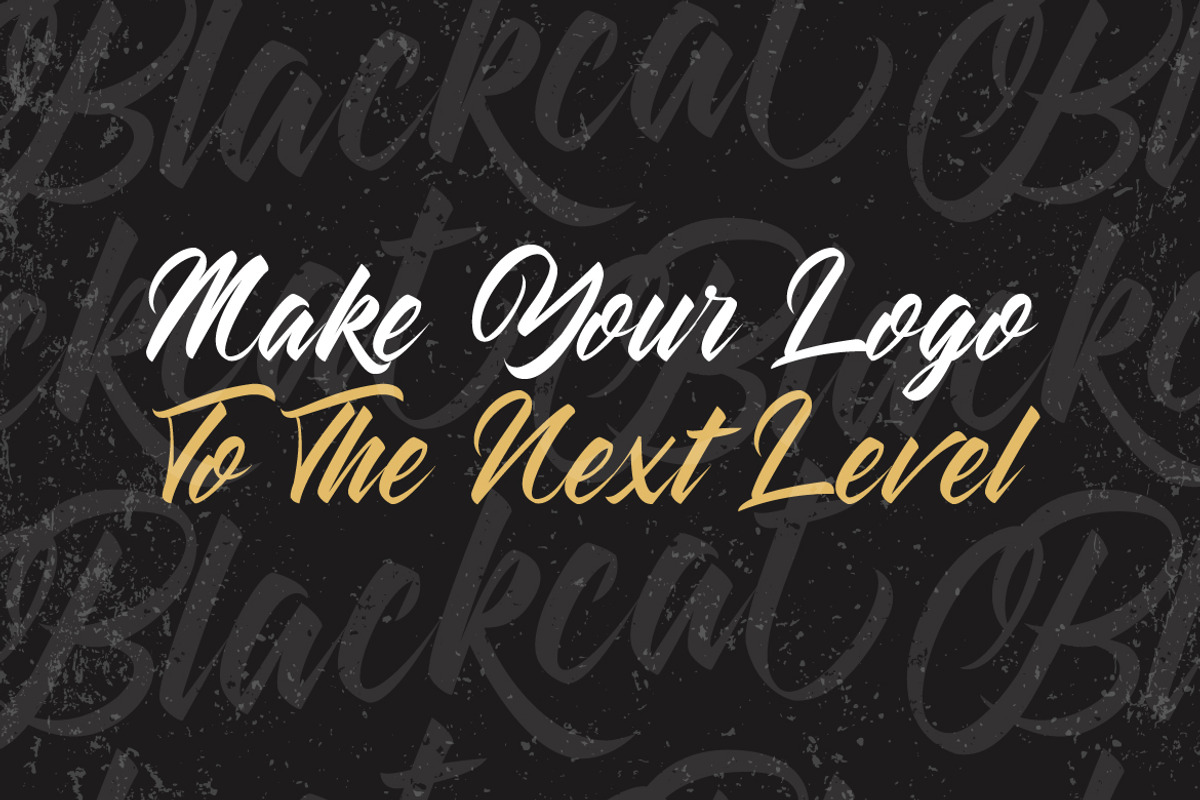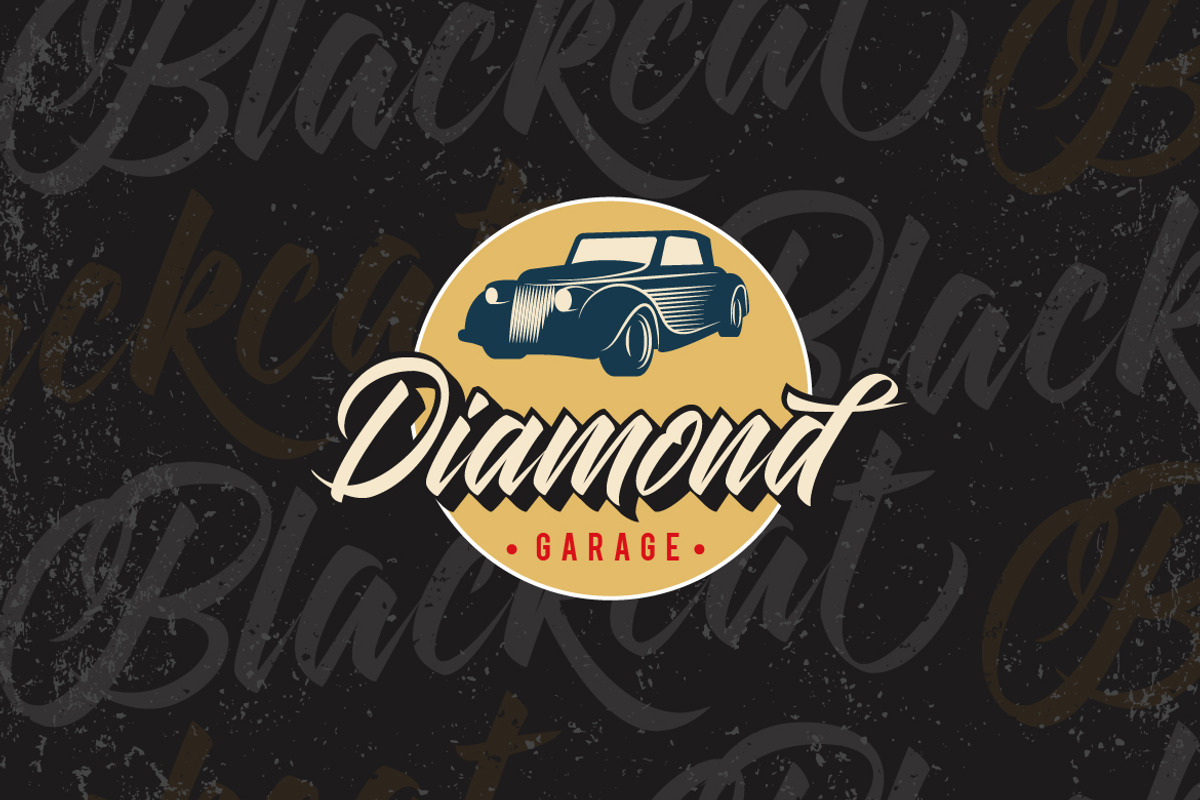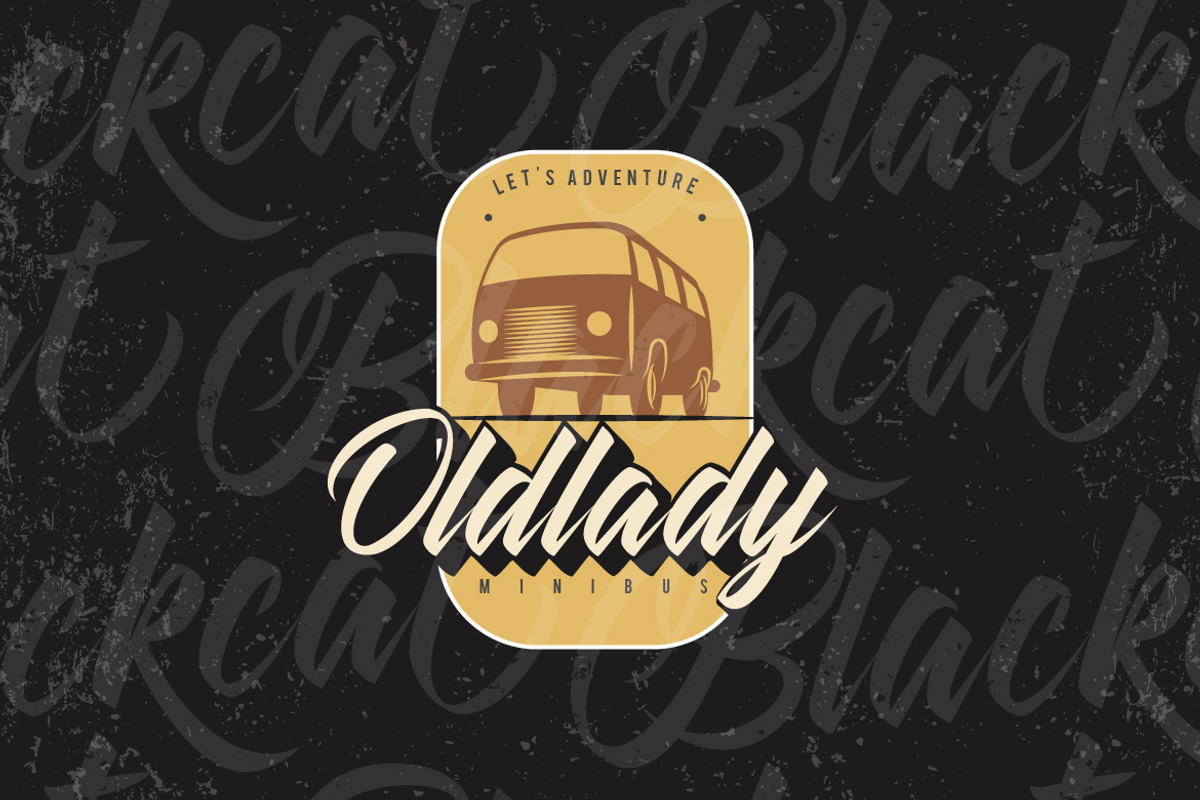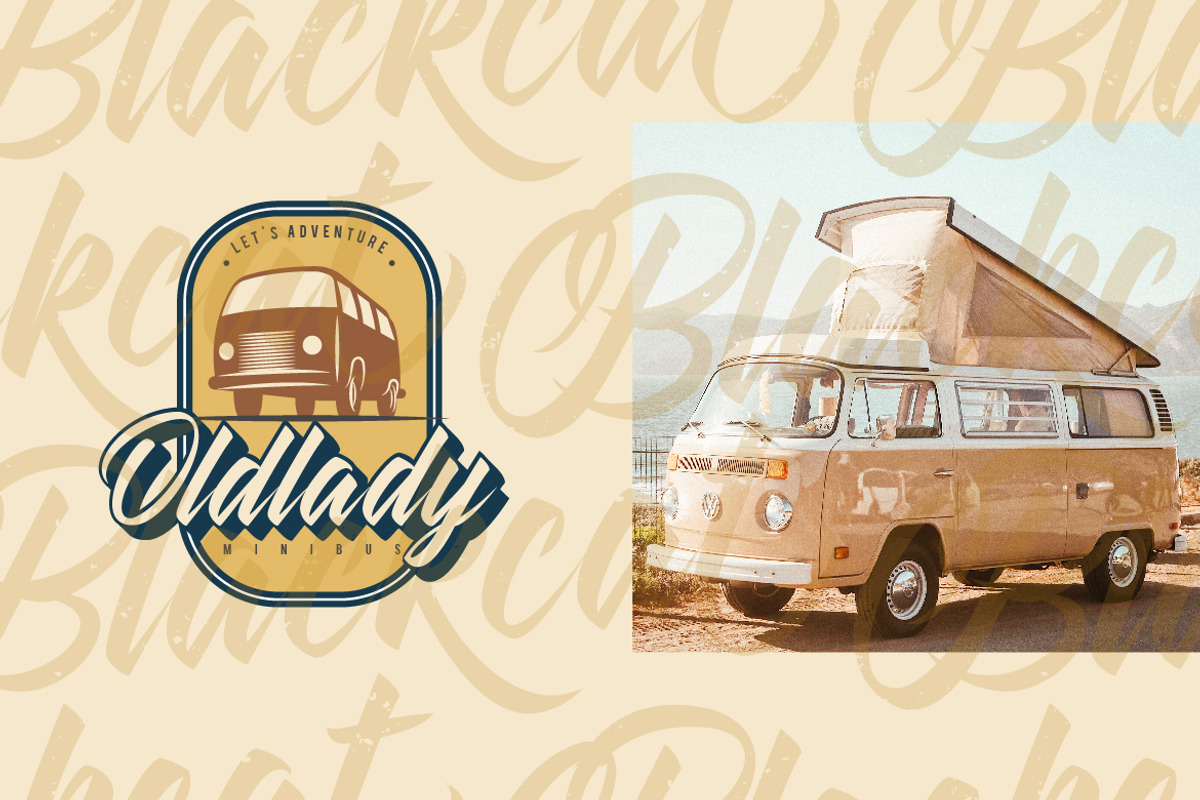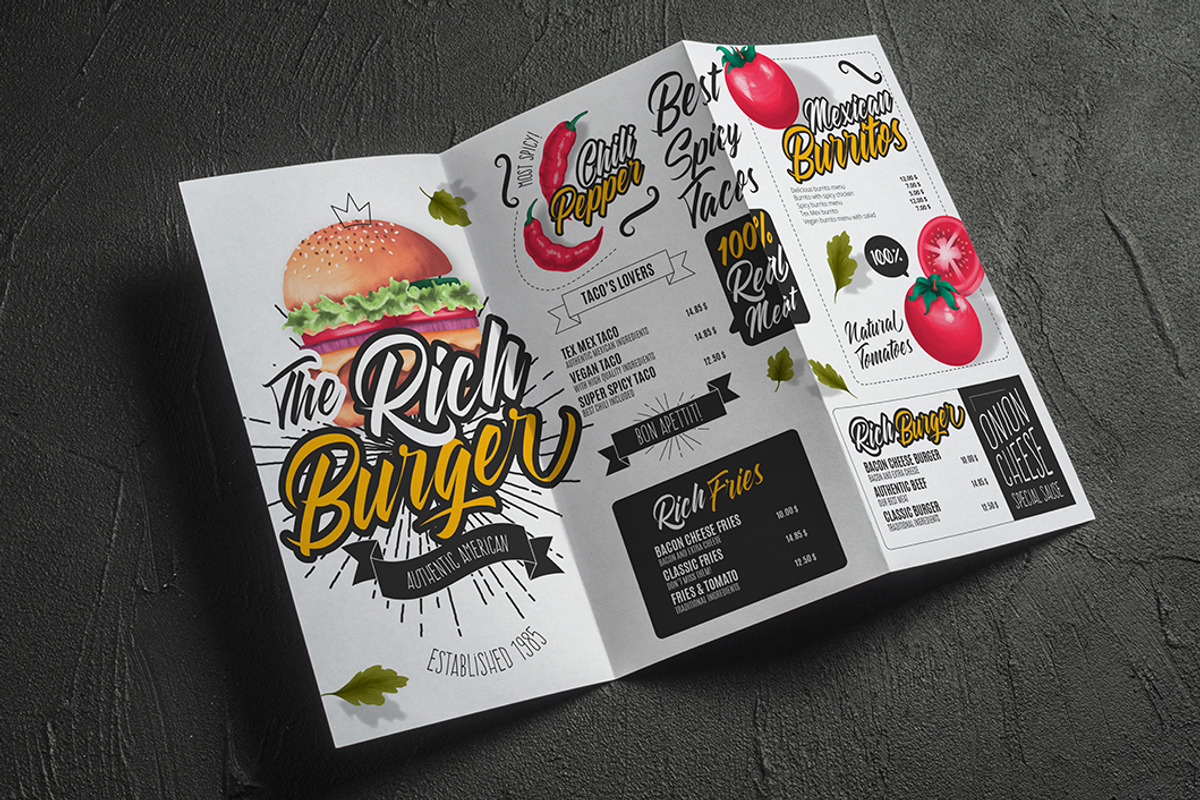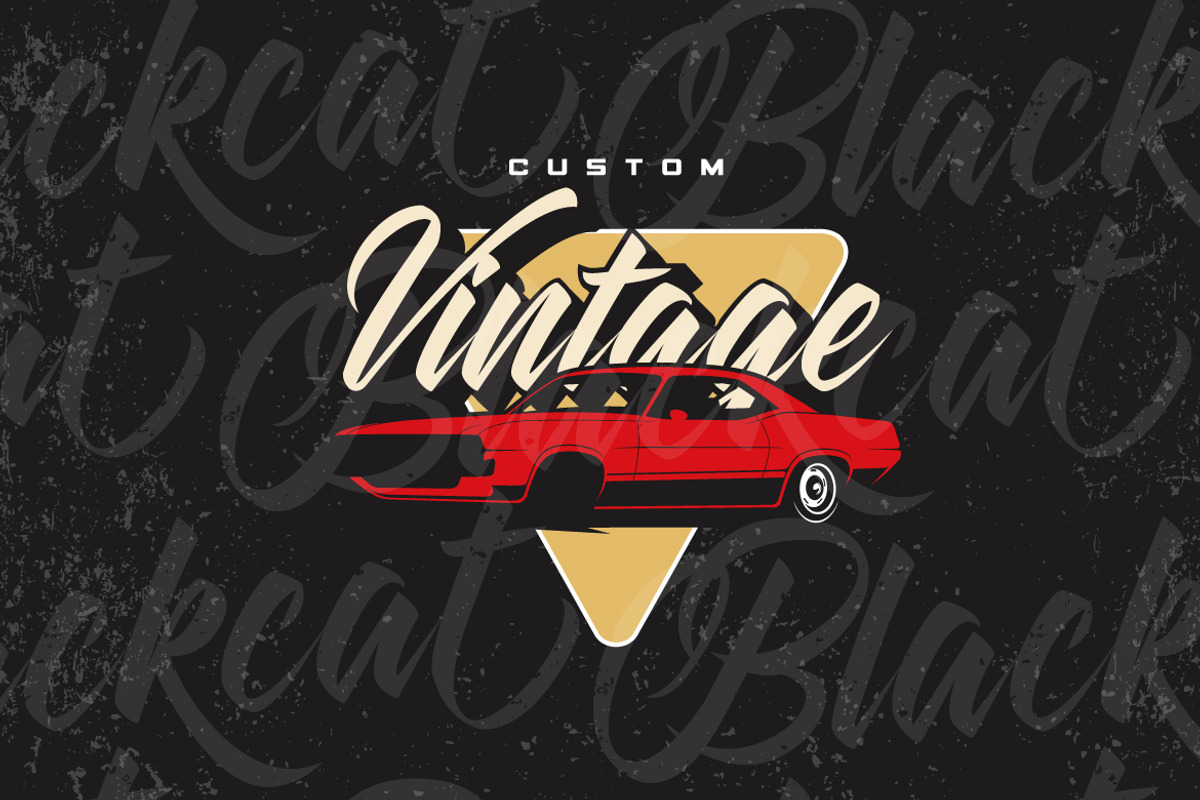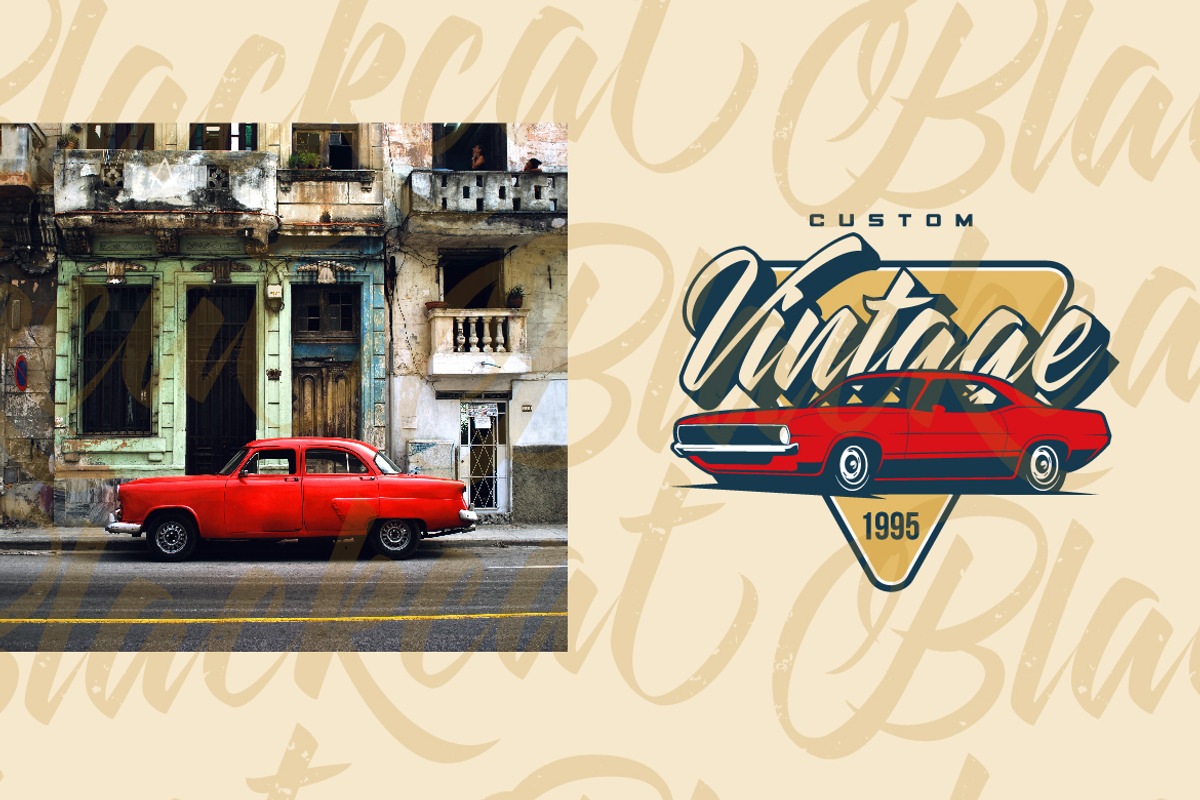
Blackcat Script Layered Fonts
Introducing new latest from Debut Studio, Blackcat is a script typeface with personality. You can use it as a logo, badge, insignia, packaging, headline, poster, etc The alternative characters in this font were divided into several OpenType features such as Stylistic Alternates, Stylistic Sets, and Ligature. The OpenType features can be accessed by using OpenType program such as Adobe Illustrator, Adobe Photoshop, and Adobe InDesign.
Blackcat Script Layered Fonts by Debut Studio fits naturally into Branding, posters, packaging, typography.